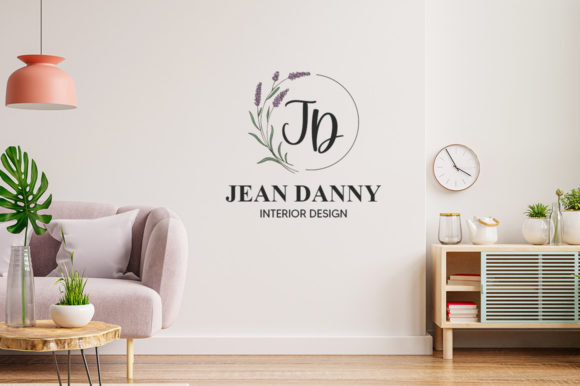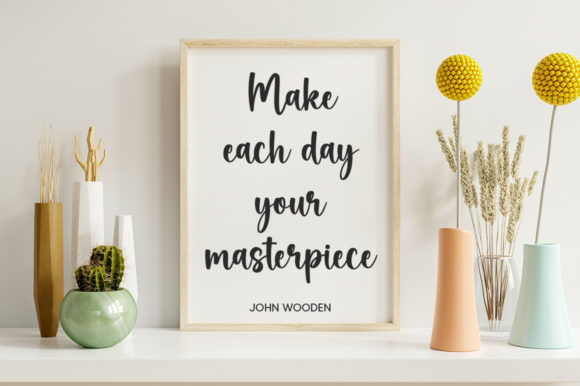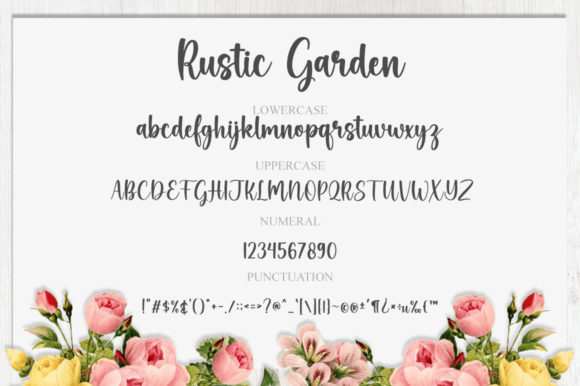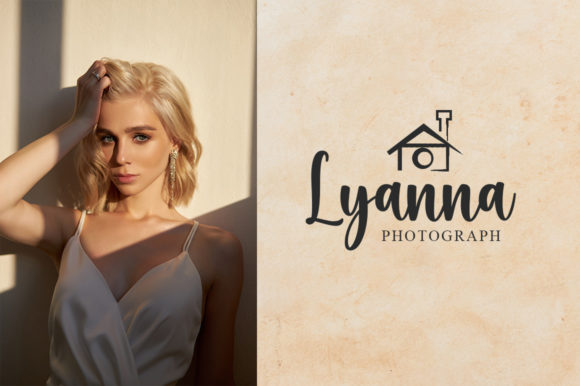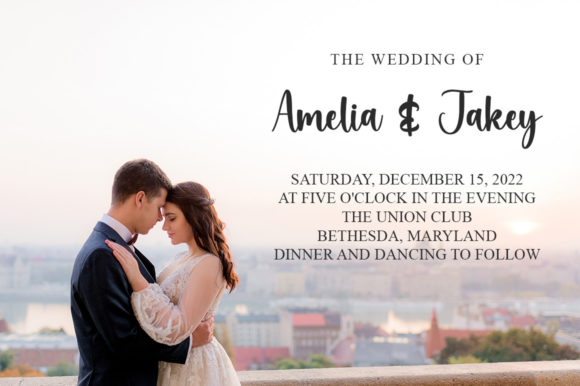
Rustic Garden Font
About Rustic Garden Font
Rustic Garden is a lovely and timeless handwritten font. It is the best choice for creating eye-catching logos, branding, and quotes. Every letter has a unique and beautiful touch, which will make your design come alive!